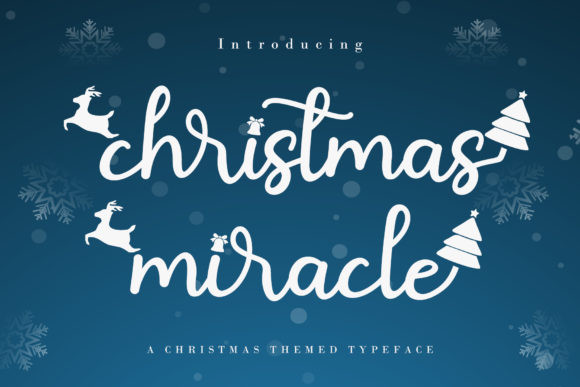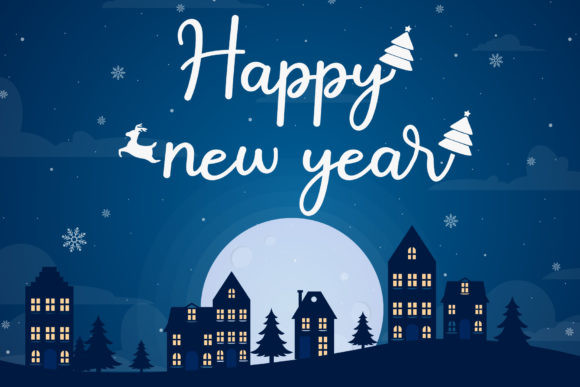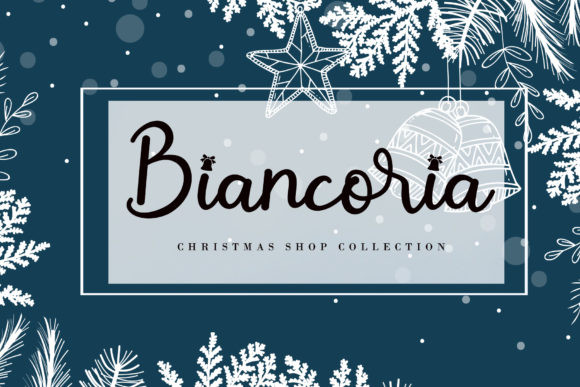
Christmas Miracle Font
Christmas Miracle is a sweet and festive handwritten font. It can be used for various purposes such as Christmas letters, headings, t-shirts, letterhead, signage, labels, news, posters, badges and so much more.